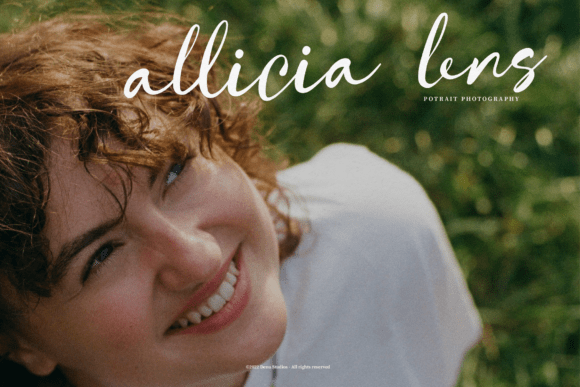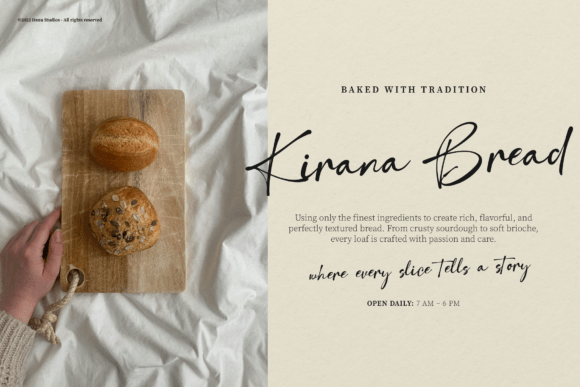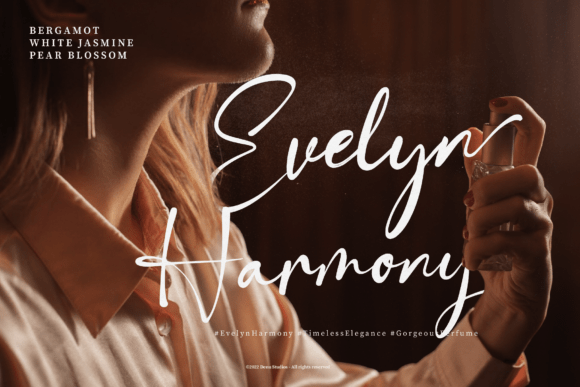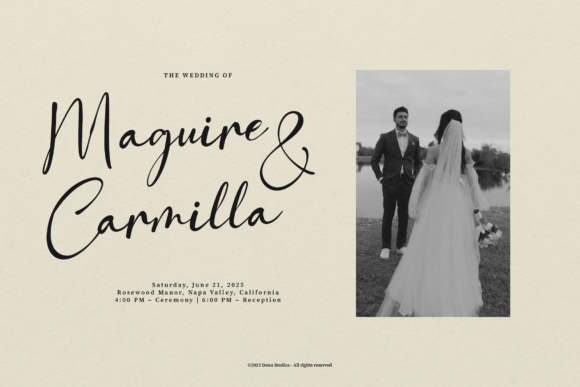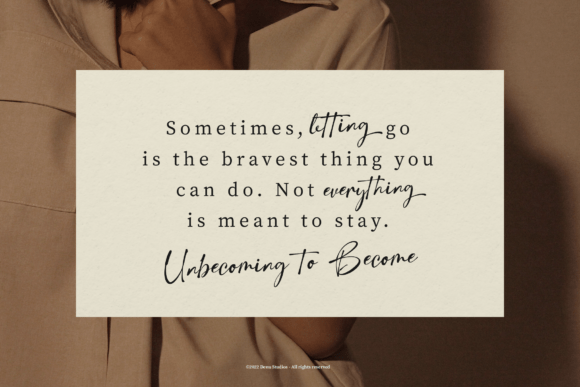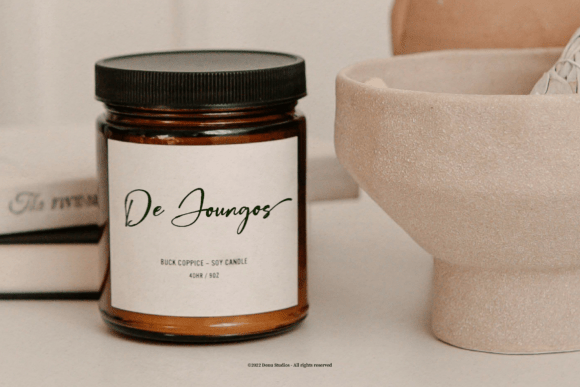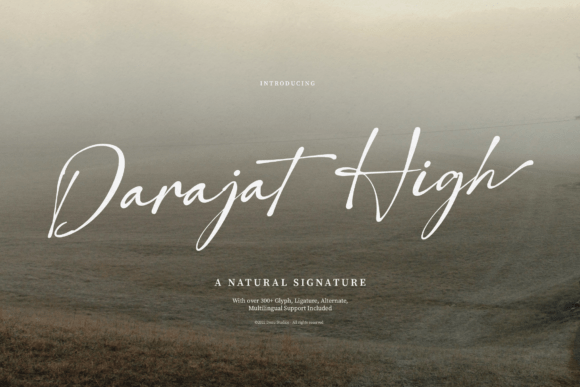
Introducing Darajat High Font: Elevate Your Designs with a Touch of Elegance
Are you a designer or crafter looking for a font that adds a touch of sophistication and whimsy to your projects? Look no further than Darajat High Font, a beautiful natural and dainty signature font that’s perfect for a wide range of applications.
What is Darajat High Font?
Darajat High Font is a carefully crafted signature font that exudes a sense of elegance and refinement. Its natural and dainty feel makes it an excellent choice for designers and crafters who want to add a personal touch to their work. Whether you’re working on a logo, branding project, or homeware design, Darajat High Font is sure to impress.
One of the best things about Darajat High Font is its versatility. It’s suitable for a wide range of projects, including:
- Logos and branding projects
- Homeware designs, such as ceramics and textiles
- Product packaging, including labels and wrappers
- Mugs, water bottles, and other drinkware
- Quotes, posters, and other print materials
- Shopping bags and point-of-purchase displays
- T-shirts, hoodies, and other apparel
- Book covers and bookmarks
- Name cards, invitation cards, and greeting cards
- Labels, photography, and watermark designs
- Special events, such as weddings and parties
Why Choose Darajat High Font?
So why should you choose Darajat High Font for your next project? Here are just a few reasons:
- Unique and eye-catching: Darajat High Font has a distinctive and stylish feel that’s sure to grab attention.
- Versatile: As mentioned earlier, Darajat High Font is suitable for a wide range of projects and applications.
- Elegant and refined: Darajat High Font adds a touch of sophistication and elegance to any design.
- Easy to read: Despite its ornate feel, Darajat High Font is surprisingly easy to read, making it perfect for body text and headlines.
Tips for Using Darajat High Font
To get the most out of Darajat High Font, here are a few tips:
- Use it sparingly: Darajat High Font is a statement font, so use it sparingly to add emphasis and visual interest to your design.
- Pair it with a sans-serif font: For body text, pair Darajat High Font with a clean sans-serif font to create visual contrast.
- Experiment with colors: Darajat High Font looks great in a range of colors, from bold brights to muted pastels.
- Pay attention to spacing: Make sure to leave enough space between lines and around the font to create a clean and elegant look.
Darajat High Font is a beautiful and versatile signature font that’s perfect for designers and crafters looking to add a touch of elegance and whimsy to their projects. With its natural and dainty feel, Darajat High Font is suitable for a wide range of applications, from logos and branding projects to homeware designs and product packaging. Whether you’re a seasoned designer or just starting out, Darajat High Font is sure to become a favorite in your font collection.